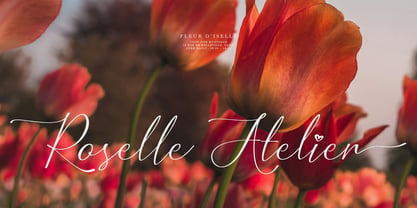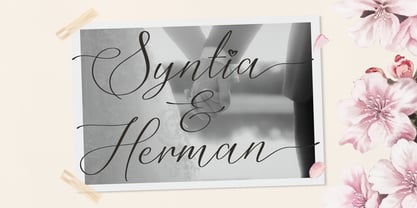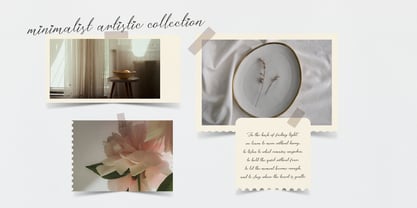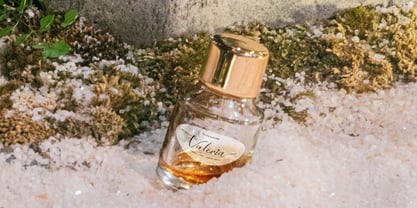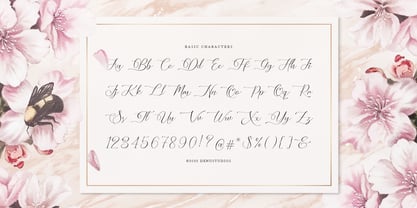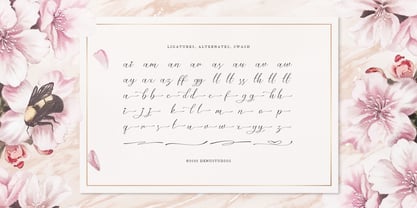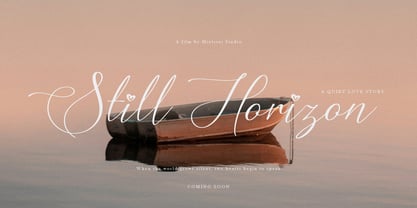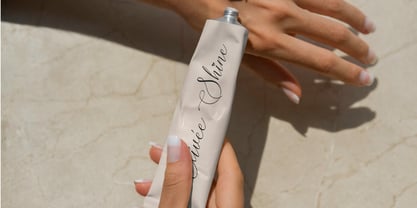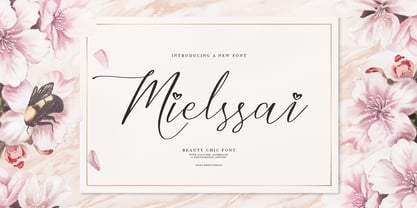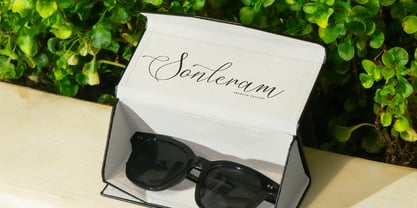
Mielssai
The Mielssai Font Family was designed by Dede Nugraha and published by Denustudio. Mielssai contains 2 styles and family package options. More about this family
Mielssai | Beauty Chic Font, from Gracetypestudio, suitable for any projects such as: logos, branding projects, homeware designs, product packaging, mugs, quotes, posters, shopping bags, t-shirts, book covers, name card, invitation cards, greeting cards, label, photography, watermark, special events, and all your other lovely projects that need a Script taste.